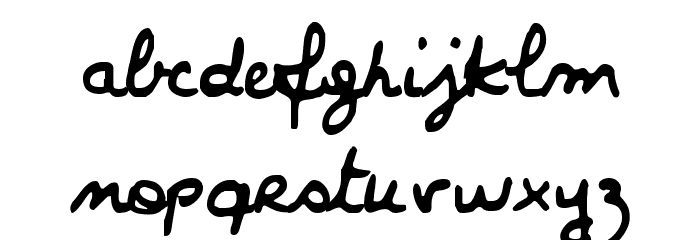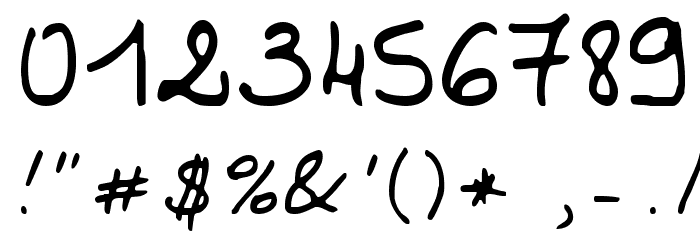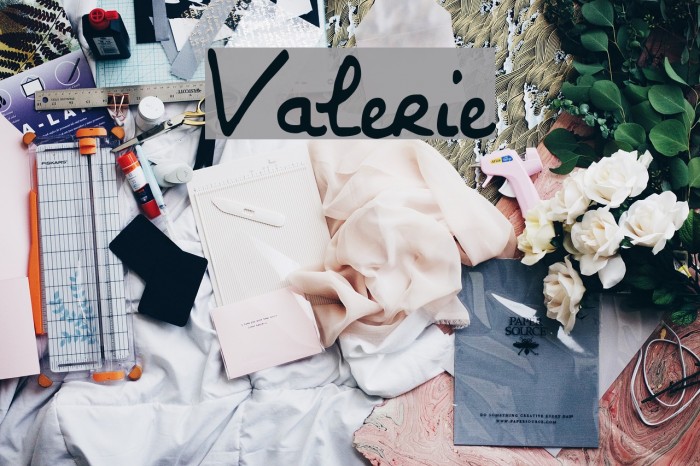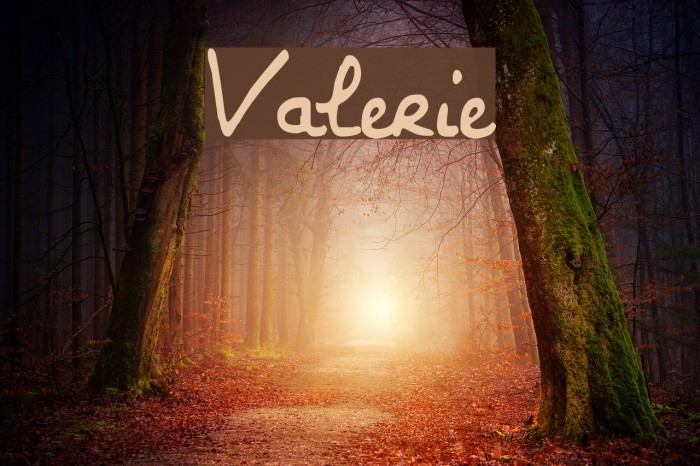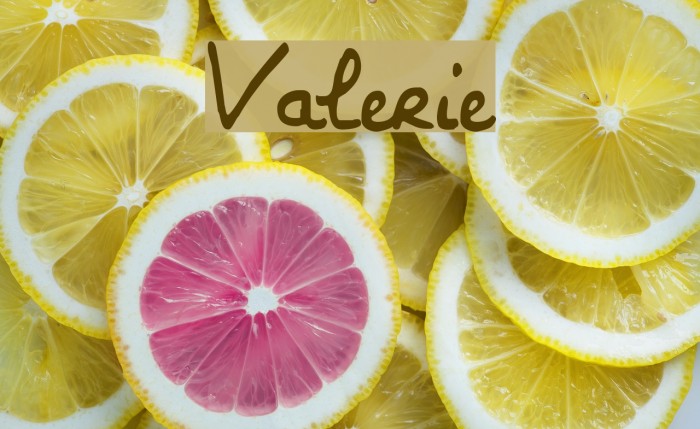
Valerie Font
This font features a playful and casual handwritten style, characterized by its fluid and slightly irregular strokes. The uppercase letters are bold and dynamic, with a slight slant that adds to the informal feel. Lowercase letters maintain a consistent flow, enhancing readability while preserving the font's unique charm. Numbers and special characters are crafted with the same lively spirit, making them suitable for a variety of creative applications. The overall appearance is approachable and friendly, making it ideal for projects that require a personal touch.
A playful, handwritten font with fluid and dynamic strokes.
- Proposed Projects: Ideal for greeting cards, invitations, personal branding, and creative social media graphics.
- Overall Style: Casual
- Use Case: Headlines, Logos, Informal Text